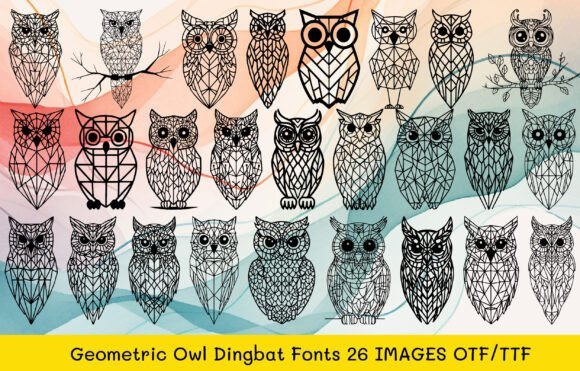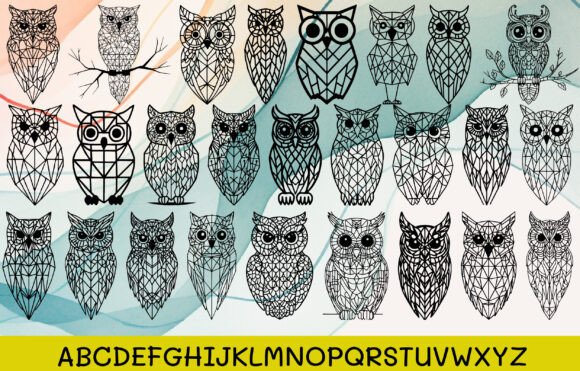
Take Your Creativity to the Next Level with Geometric Owl Dingbats Fonts Font
Have you ever stared at a blank canvas or page, waiting for inspiration to strike? For many creatives, that’s a familiar feeling. But what if you had the perfect tool to unlock your imagination and bring your vision to life? Enter Geometric Owl Dingbats Fonts Font, a game-changing set of 26 unique star-inspired owl designs with a modern geometric twist.
This font is more than just a decorative element – it’s a key to adding a contemporary flair to your projects. Whether you’re a seasoned designer or a crafty enthusiast, Geometric Owl Dingbats Fonts Font is a valuable addition to your toolkit. With both OTF and TTF file formats, you can use it to create stunning visuals, add a touch of whimsy to your designs, and take your projects to the next level.
Geometric Owl Dingbats Fonts Font Key Features
- Unique Geometric and Dingbats Style: This font offers a unique blend of geometric shapes and whimsical dingbats, making it perfect for creative projects.
- Unique Character Set: Includes a range of unique characters, including geometric shapes, dingbats, and ornaments, making it perfect for adding a touch of personality to designs.
Geometric Owl Dingbats Fonts Font Review
I’ve had the chance to play around with the Geometric Owl Dingbats Fonts Font, and here’s my honest review.
- Unique and quirky design: The geometric owl dingbats are certainly one-of-a-kind and add a touch of whimsy to any design.
- High-resolution glyphs: The font is available in high-resolution, making it perfect for print and digital applications.
- Great for illustrations and graphics: The font’s playful style makes it an excellent choice for creating engaging illustrations and graphics.
- Limited character set: The font is a dingbats font, which means it’s primarily designed for decorative purposes and lacks a comprehensive character set.
- Not suitable for body text: Due to its playful and decorative nature, the font is not ideal for large blocks of text, making it best used as an accent font.
- May not be suitable for all audiences: The font’s quirky design may not appeal to all audiences, so it’s essential to consider your target audience before using it.
Overall, the Geometric Owl Dingbats Fonts Font is a fun and creative addition to any design arsenal. While it may have some limitations, it’s perfect for projects that require a unique and playful touch.
For optimal results, use the Geometric Owl Dingbats Fonts Font for titles, headings, and decorative text. This font is ideal for creating eye-catching designs, adding a touch of whimsy to your projects, and creating a unique visual identity.